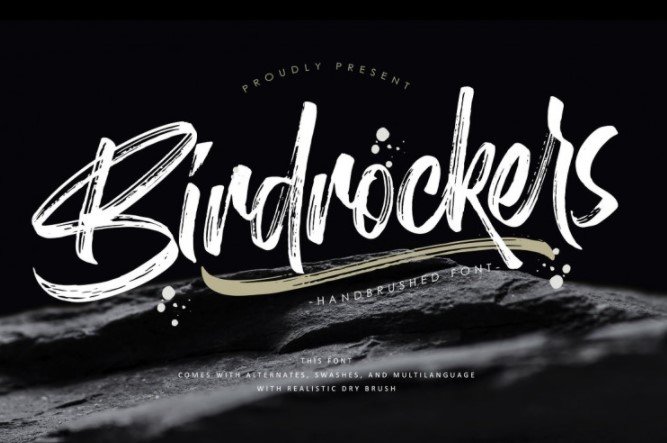
Hello graphic designers. Are you looking to design large scripted projects but lack a standout typeface? Then you should consider using Birdrockers Brush Font in your work. It features a beautiful, naturally handwritten texture that adds an awesome, clean, and brilliant touch to your designs. After incorporating this font into your projects, both you and your clients will be thoroughly satisfied with this exceptional typeface.
The font gives you the support of the multilingual languages of almost all national or international languages. IF you have projects of the languages like Latin, Cyrillic, dutch or anything else, then you can easily use the font also in those projects.
There are so many designers who loved this font that is similar to kiss me quick font so much and because of its clear and clean texture, the font has great popularity among professional designers.
This is awesome rough handwritten typeface which can easily be adjusted in all types of displays like small and big screens.
This stylish and attractive font that is similar to kabel font which has a popular texture so that can also be used in pairing also.
• Newsletters
• Directories
• Postcards and flyers
• GIFs
• Annual reports
• Trailers
Style Handwritten